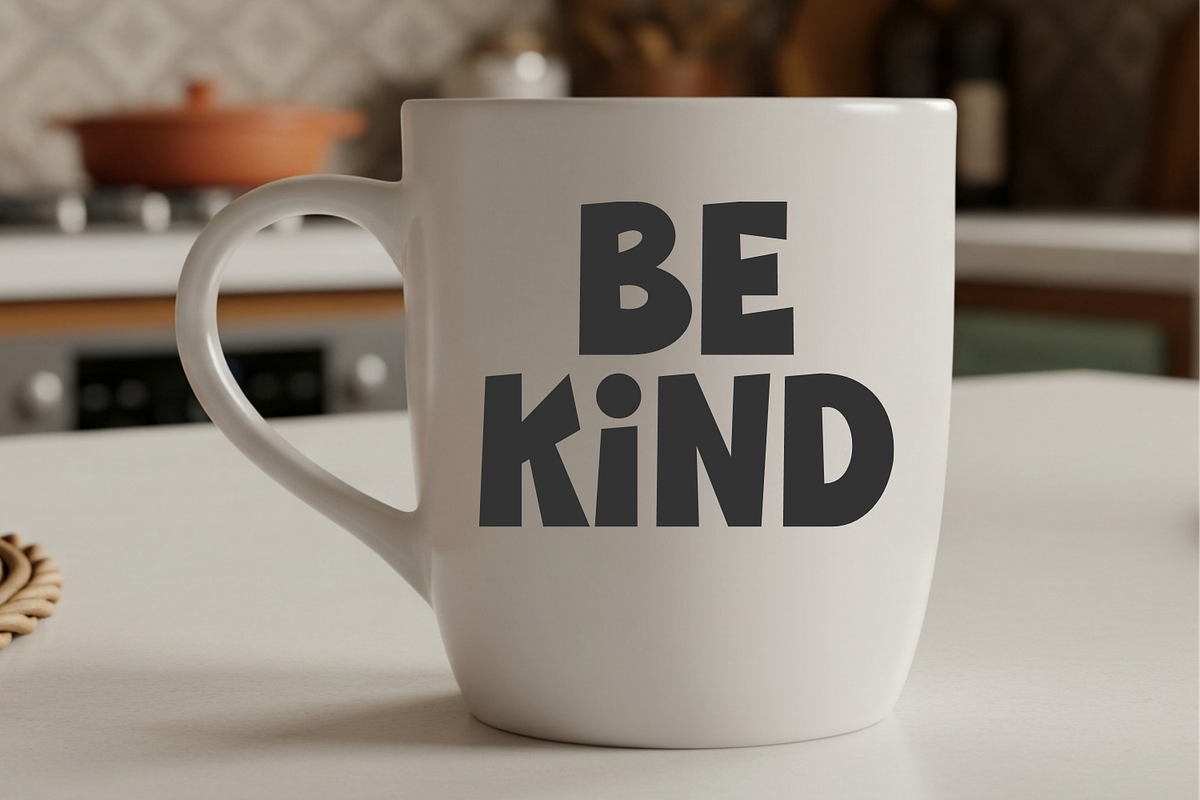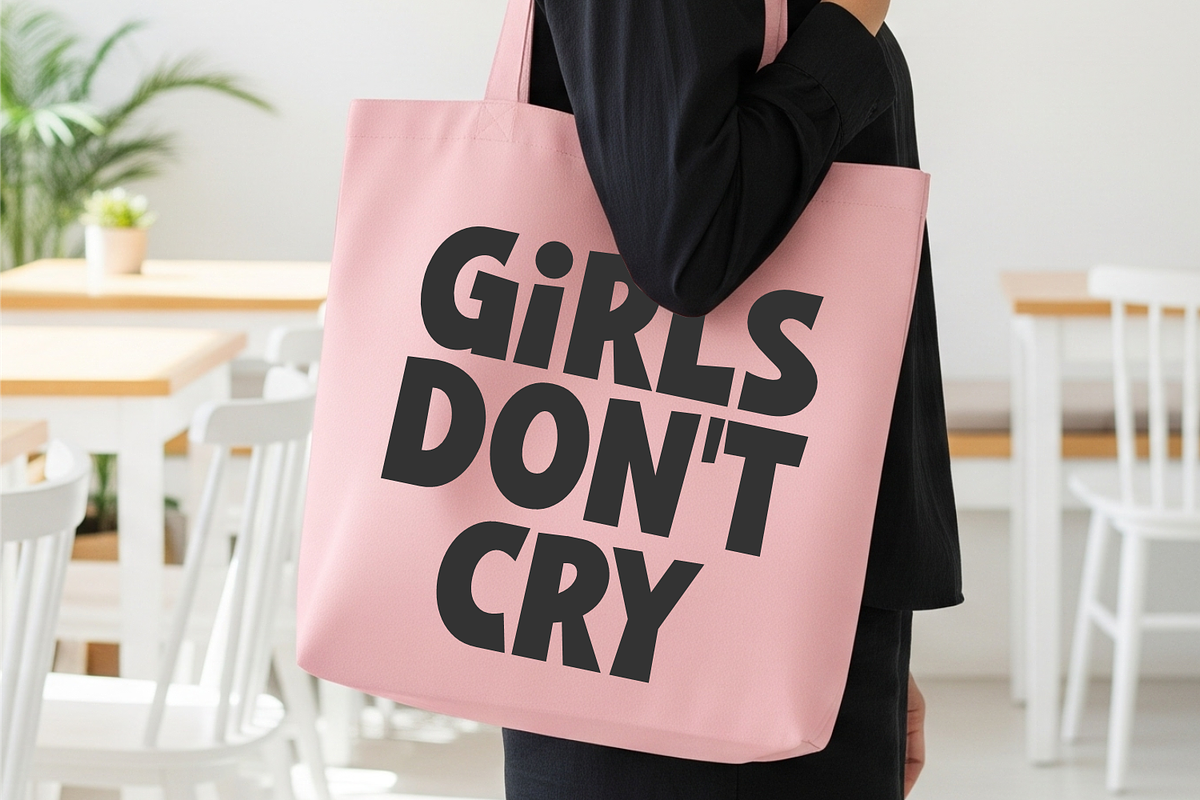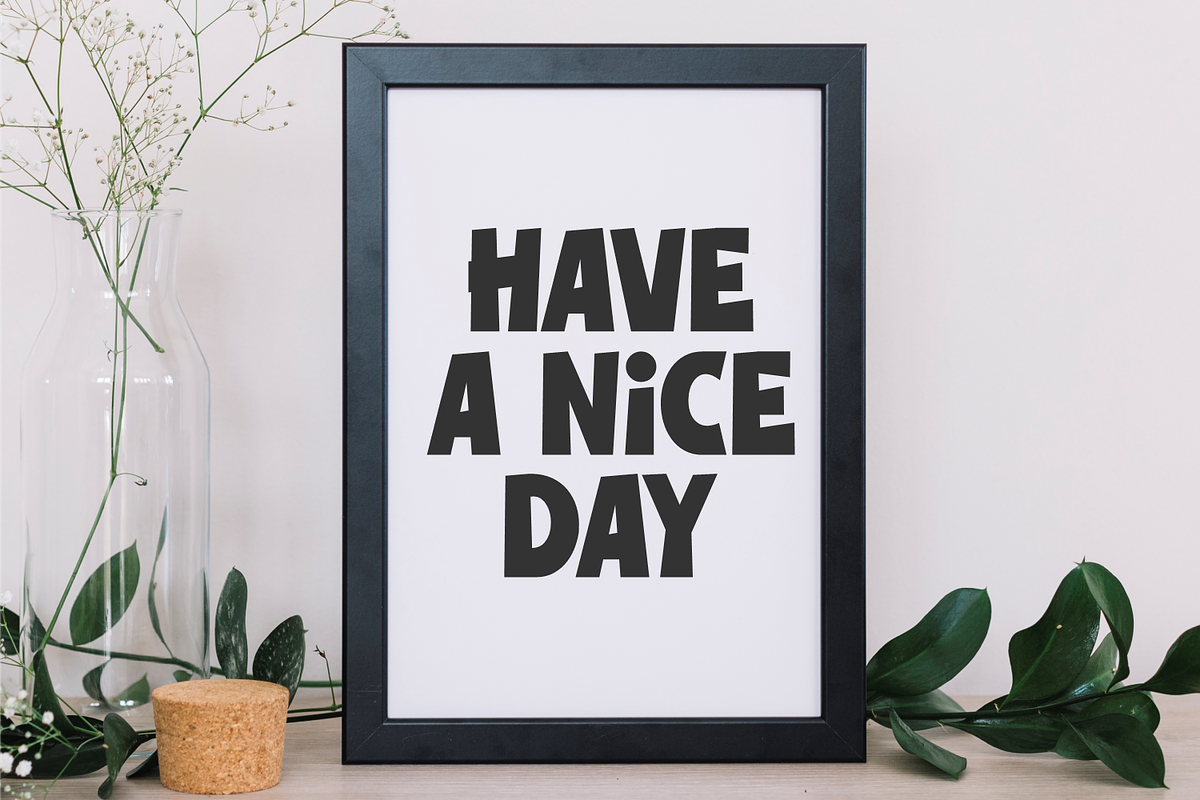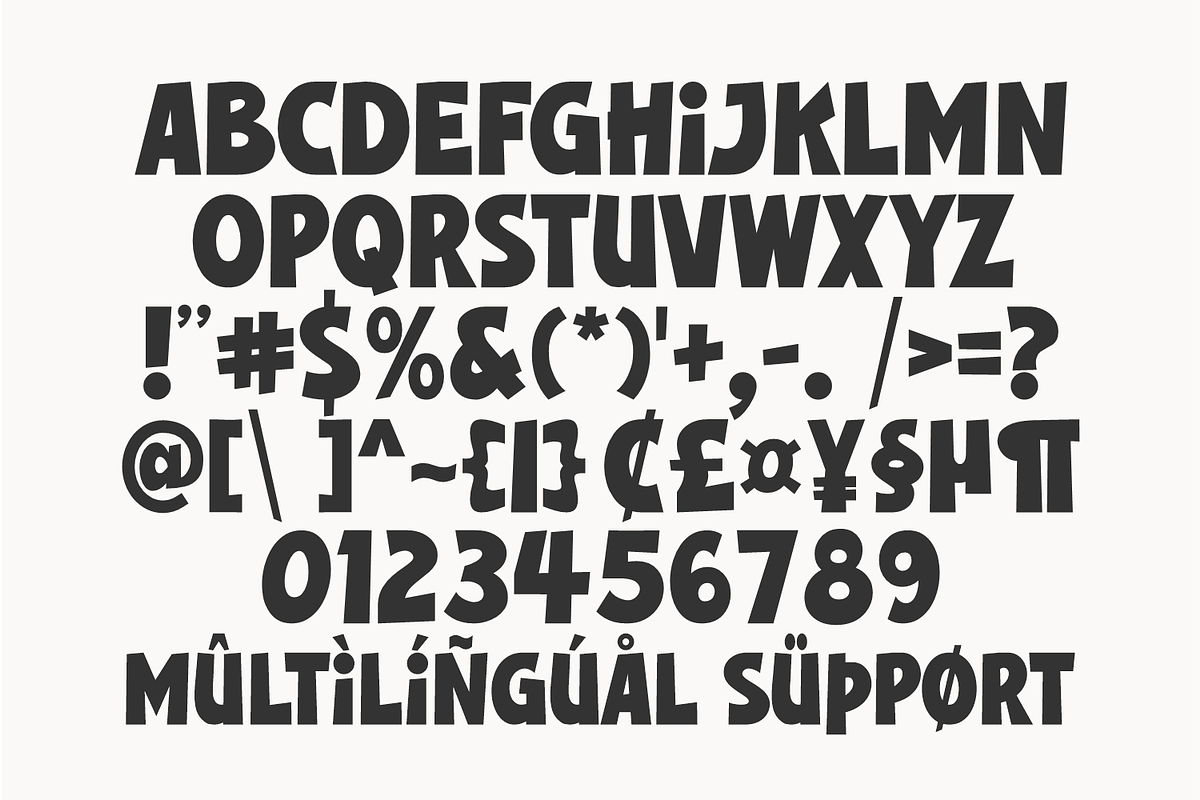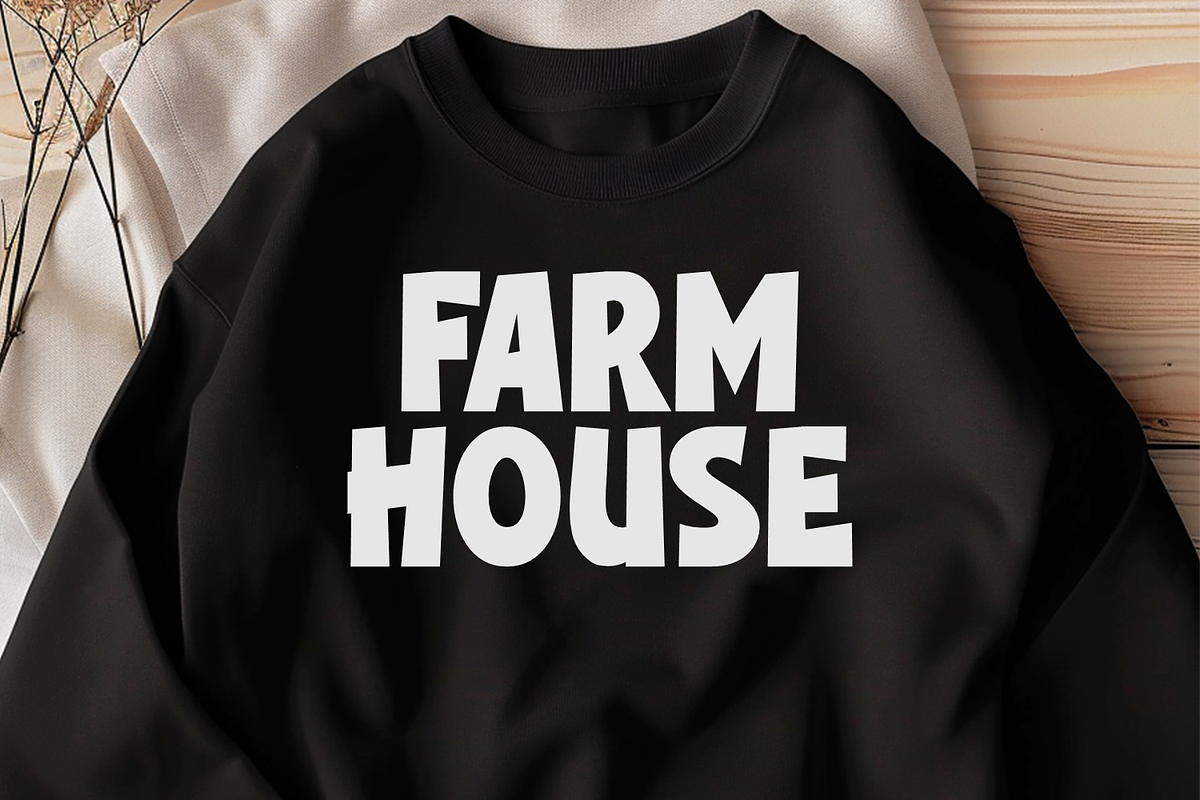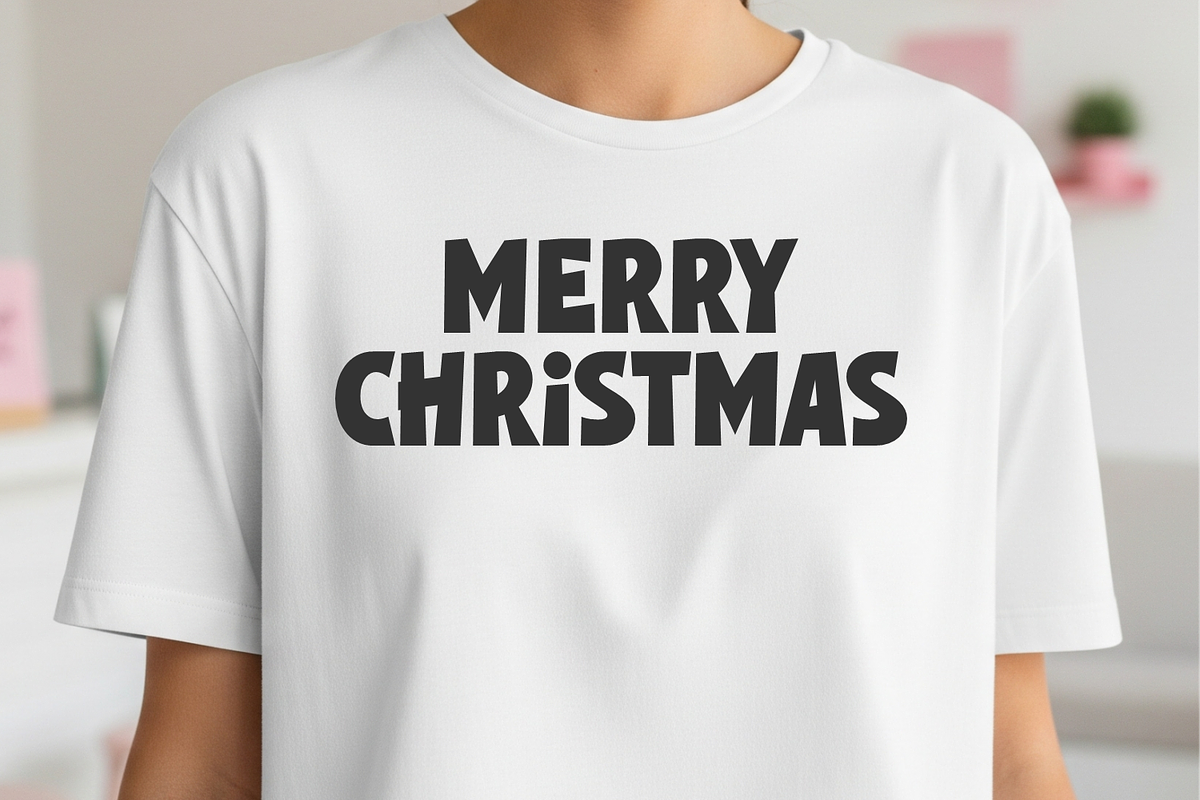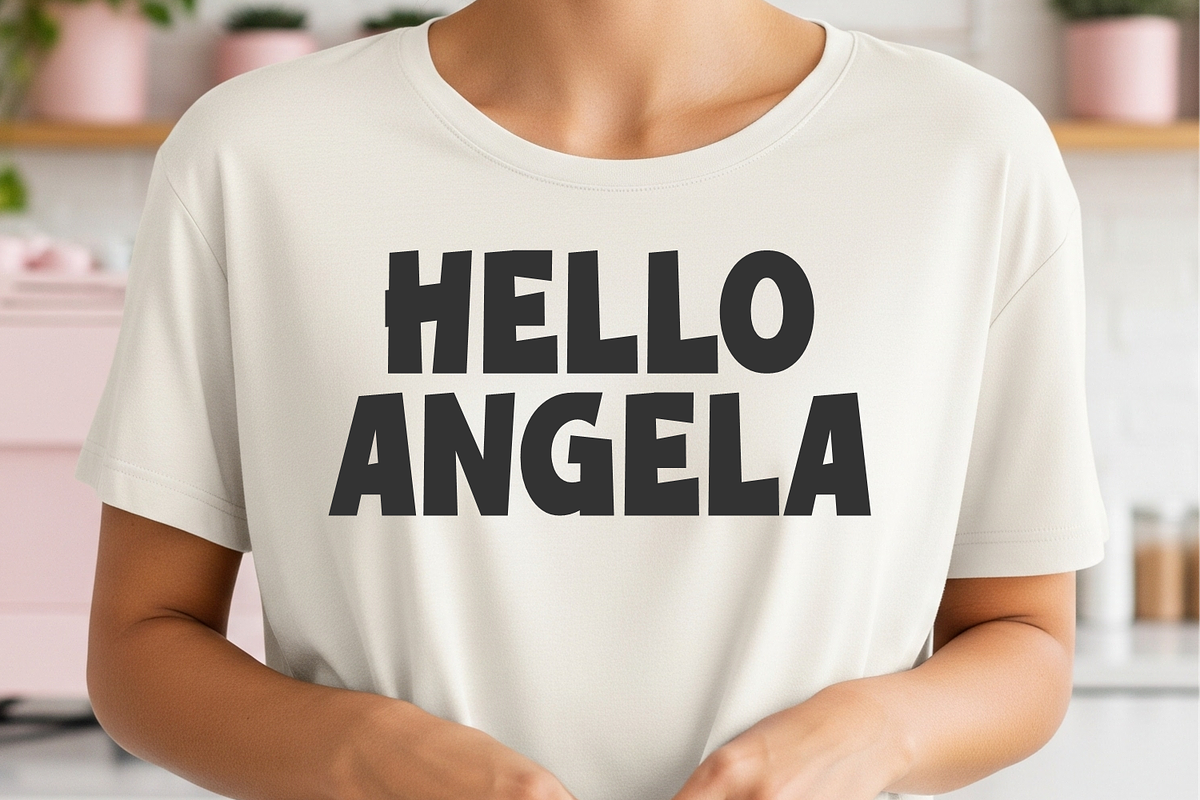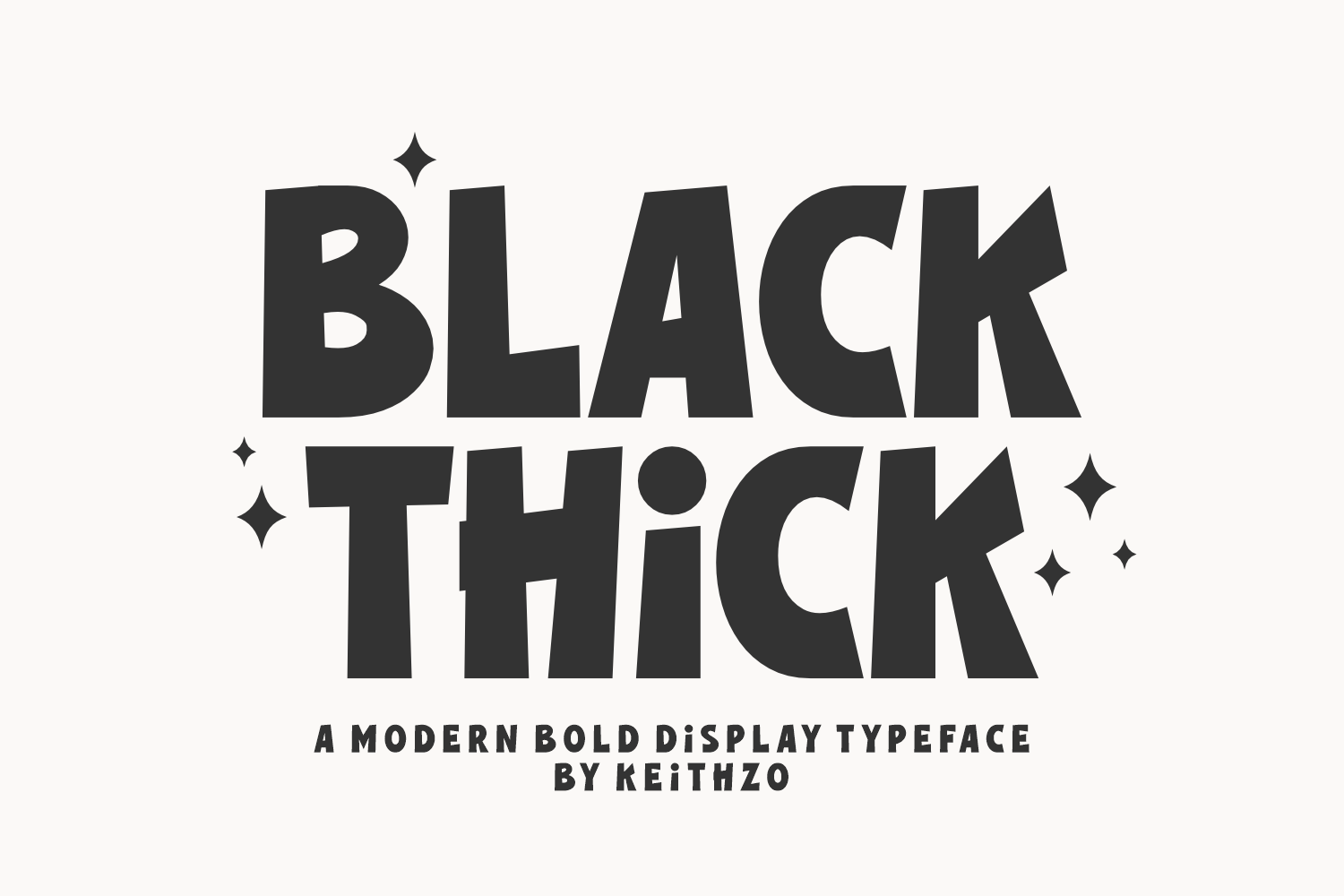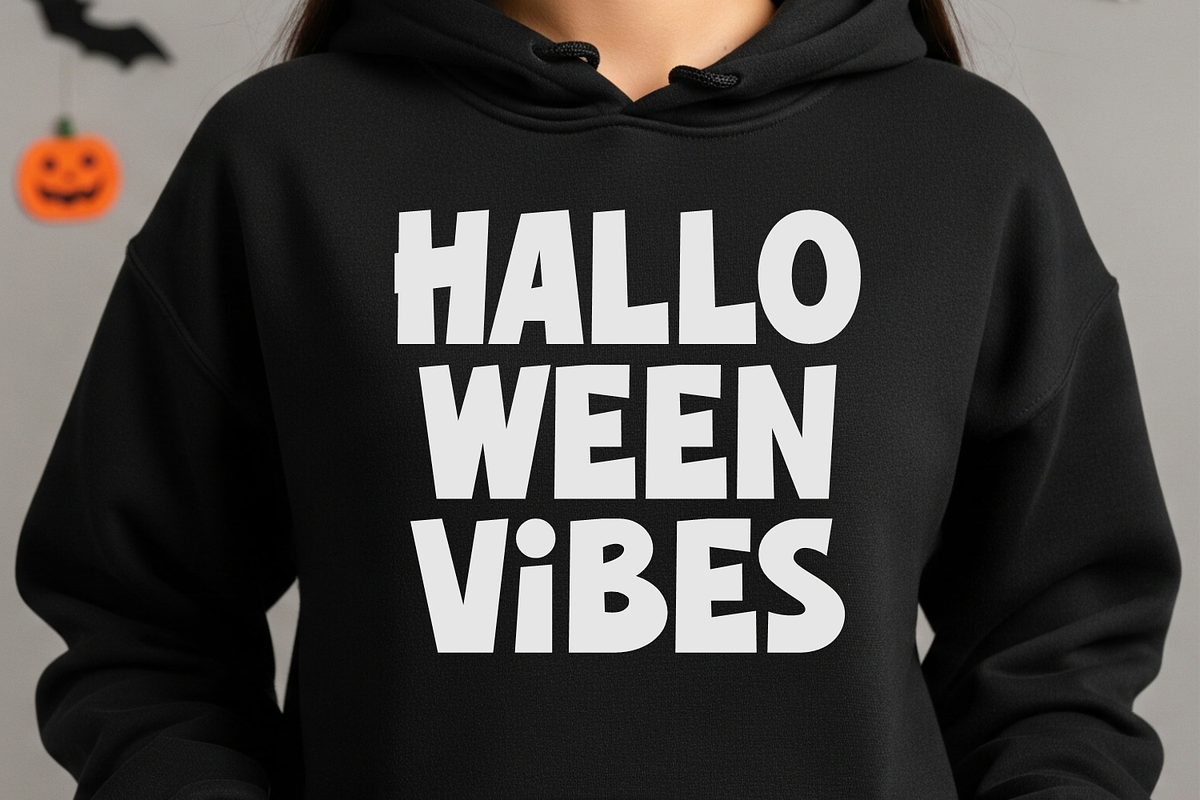
Black Thick - Display Font
The Black Thick font is a playful yet potent modern bold display typeface that radiates sheer magnetism.
Black Thick captivates with its robust, rounded letterforms and subtly narrowed structure, promising to embed your message with resonating visual impact. Its hallmark feature, the ultra-heavy weight, guarantees unrivaled visibility, ensuring your creation leaves a lasting impression.
Despite its power, Black Thick balances bravado with a contemporary, lighthearted spirit, enriching its versatility for a myriad of projects.
Designed for large-scale applications, it’s the perfect choice when unambiguous clarity and potent visual punch are paramount. Black Thick is the ultimate font for designers aiming to harmoniously blend audacious boldness with a fresh, modern appeal.